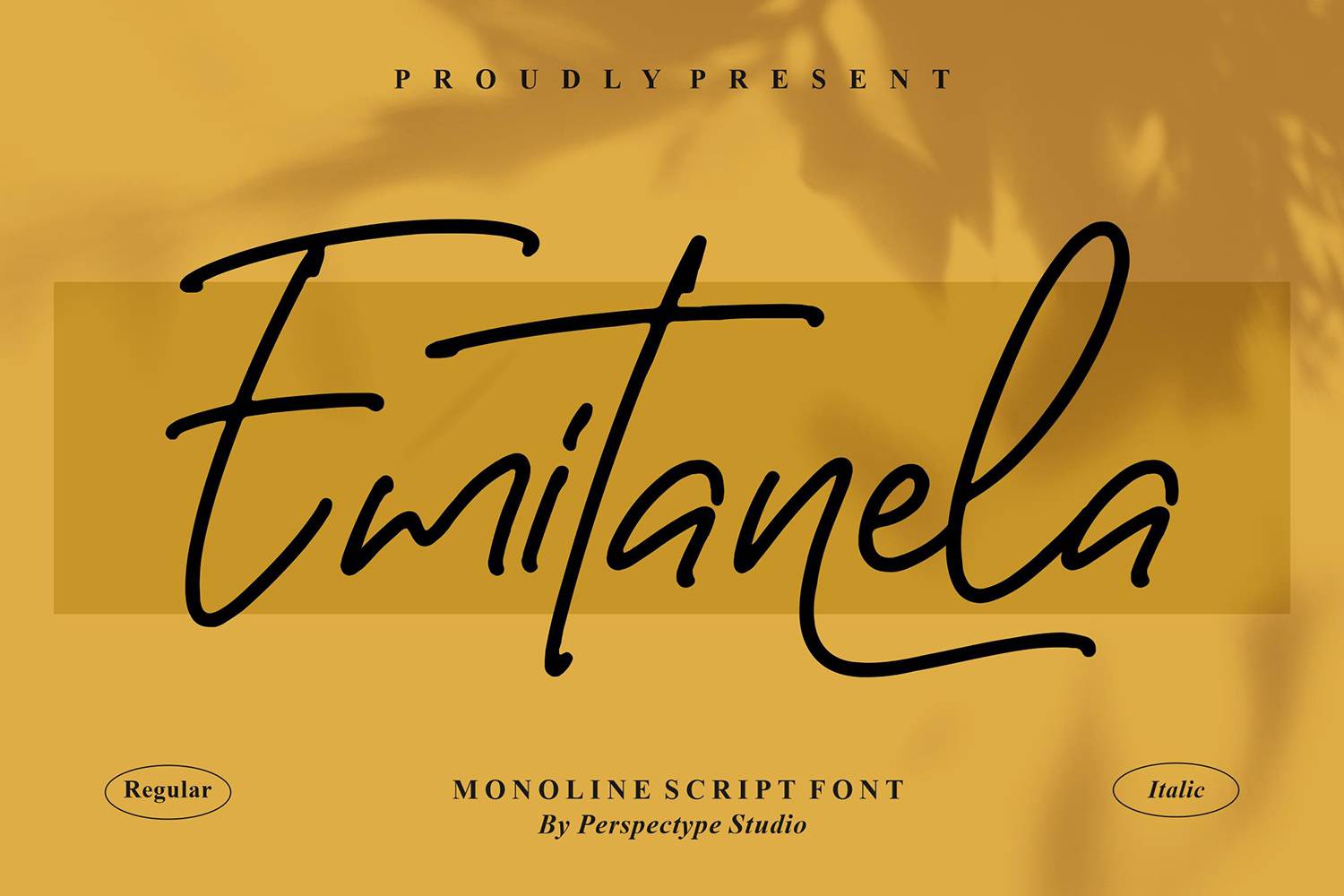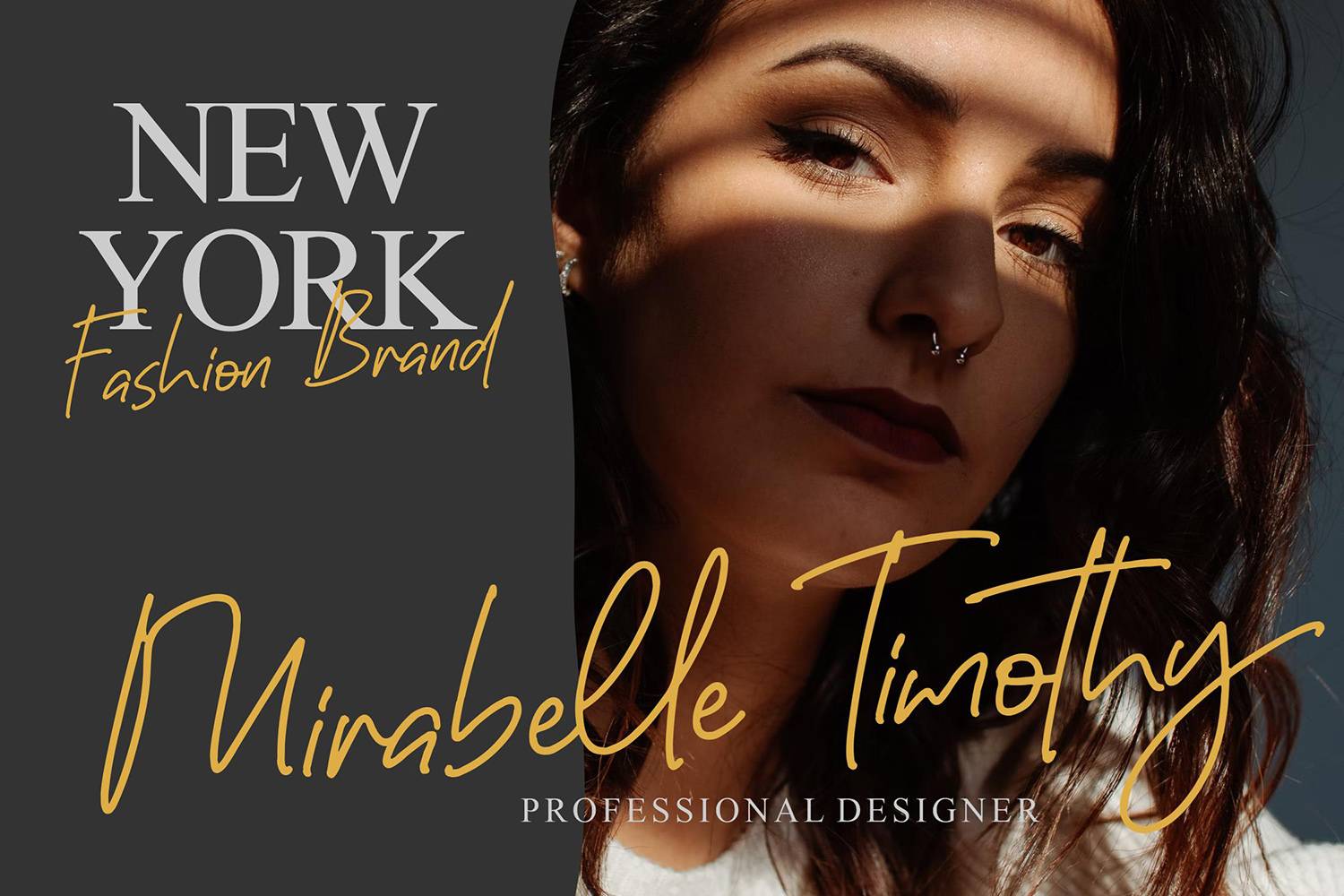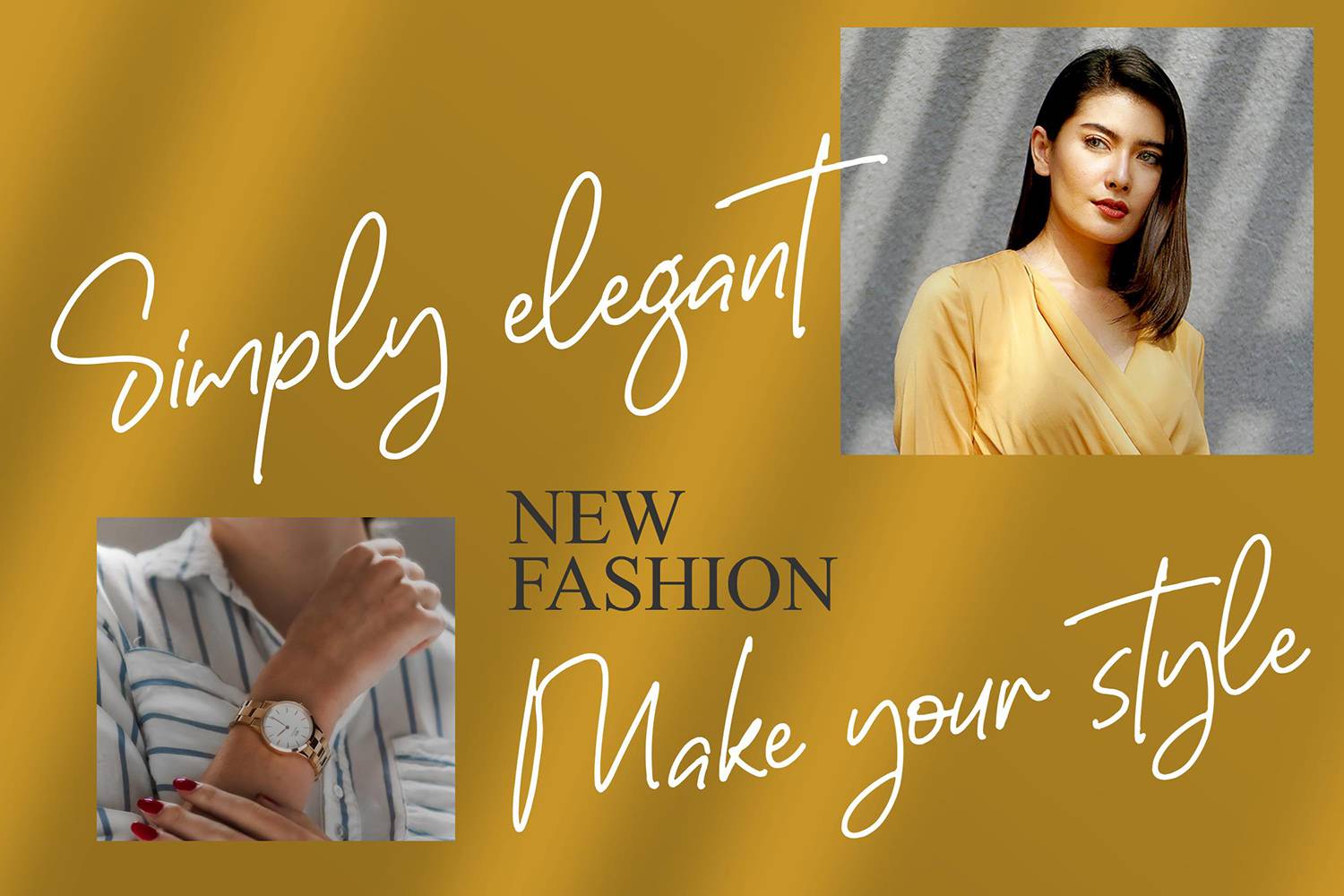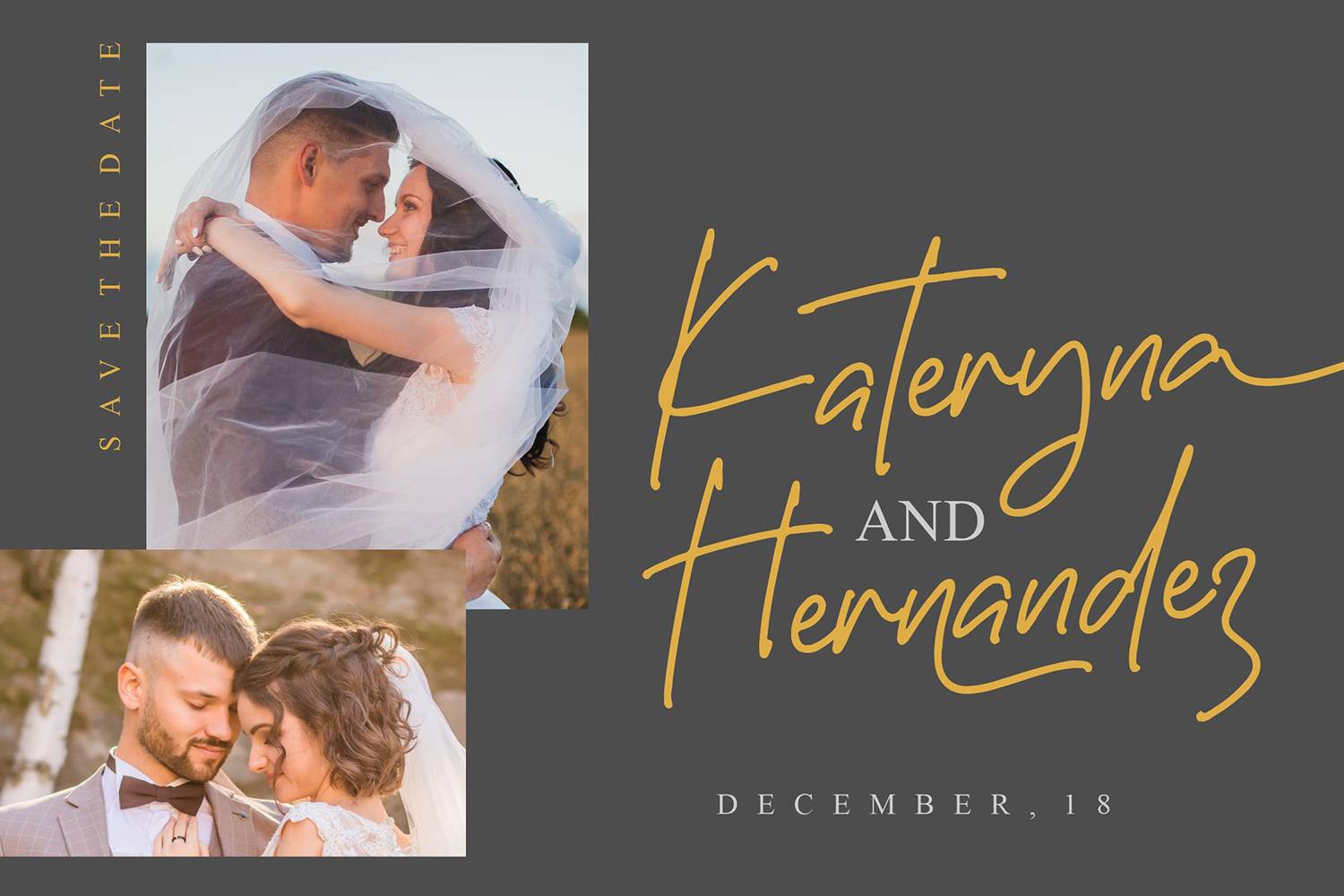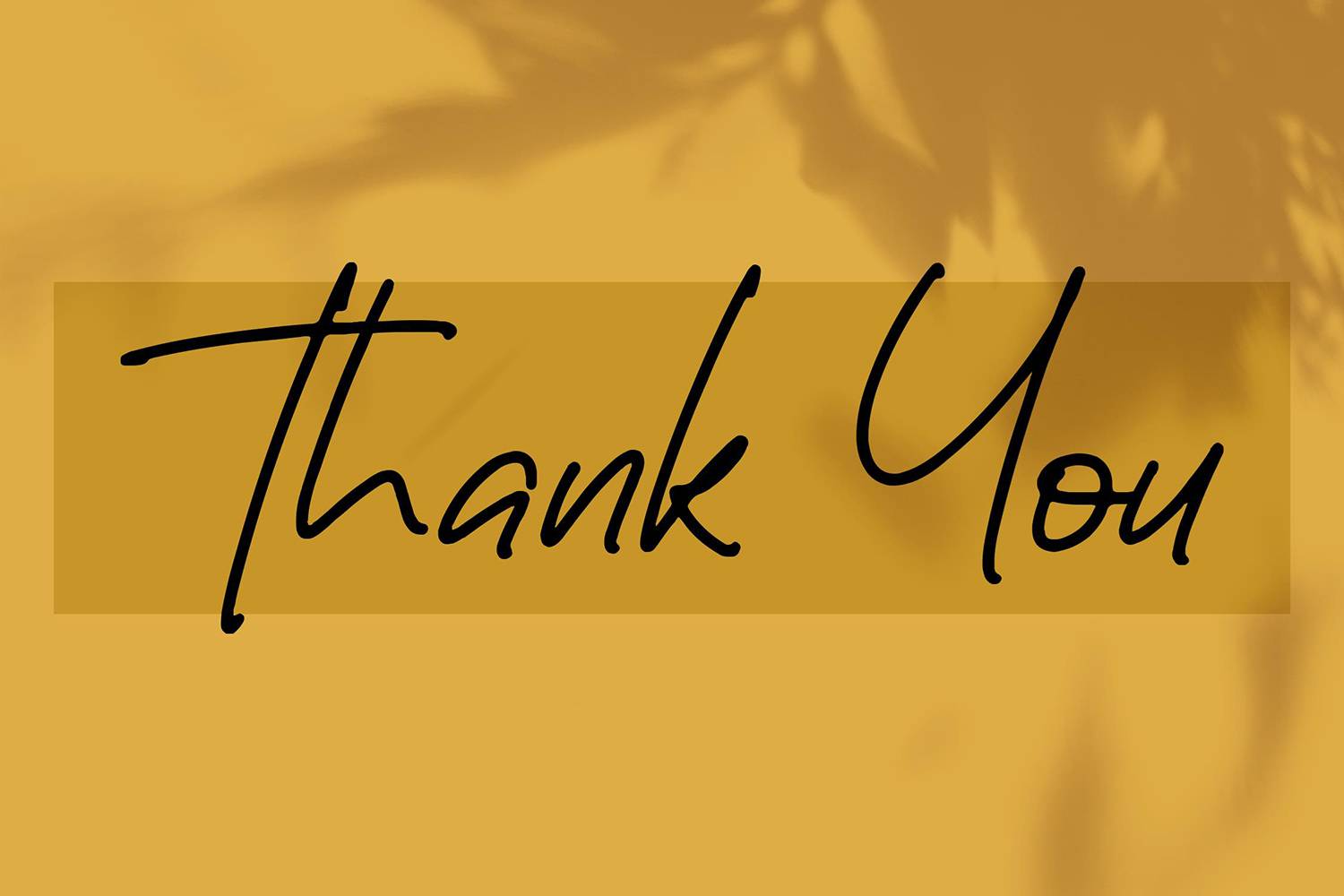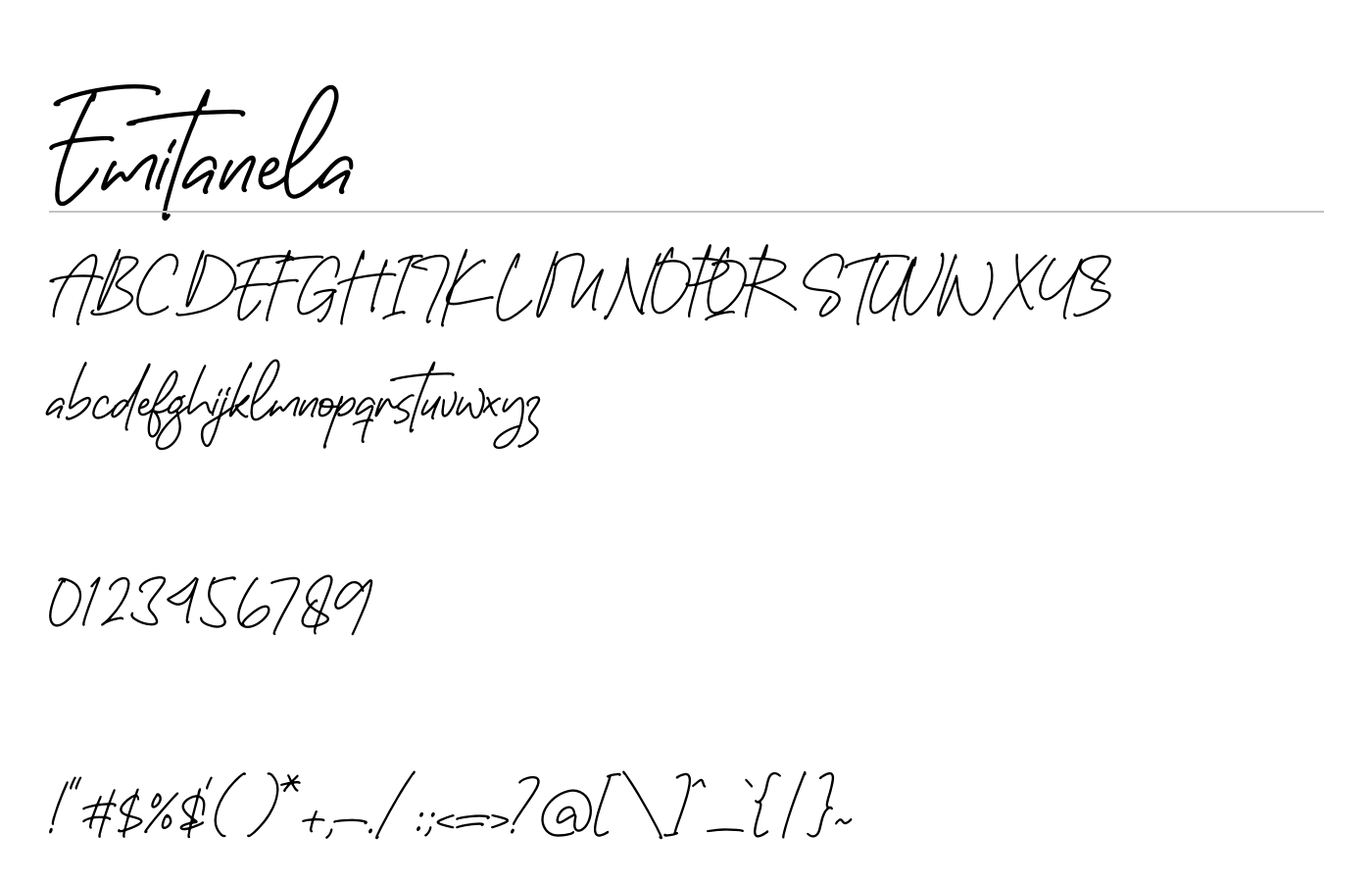
Emitanela is a delicate, handwritten script font characterized by its thin, flowing strokes and slightly irregular letterforms that create a natural, personal touch. Its light weight and airy spacing give it an elegant yet casual feel, making it perfect for creative branding, invitations, and lifestyle projects where a warm and approachable style is desired. This font works well in designs that need a refined, authentic handwritten look without sacrificing readability.
Emitanela Font
About Emitanela Font